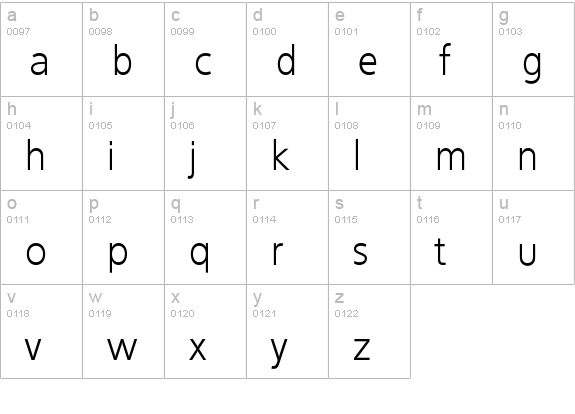
Quebec-Light is a refined, elegant variant in the Quebec typeface family \xE2\x80\x94 well suited to elegant body text, refined sub-headings, and luxury branding.
Quebec-Light is a stunningly elegant font that exudes sophistication and modernity. With its sleek lines and refined curves, this font is perfect for adding a touch of class to any project. Whether you're designing a logo, creating a website, or crafting a stylish invitation, Quebec-Light will elevate your work to the next level. This font is unique in its ability to strike the perfect balance between simplicity and elegance. The light weight of the font gives it a delicate and airy feel, making it ideal for projects that require a subtle touch. It is versatile enough to be used in both headline and body text, ensuring that your message is conveyed effortlessly. One of the best things about Quebec-Light is that it is free to download at FontsMarket.com. This means that you can enjoy the beauty and sophistication of this font without having to spend a dime. FontsMarket.com is a trusted source for high-quality fonts, and Quebec-Light is no exception. By offering this font for free, FontsMarket.com is making it accessible to all designers, regardless of their budget. So why wait? Download Quebec-Light today and add a touch of elegance to your next project. Whether you're designing for print or web, this font is sure to impress. With its free availability at FontsMarket.com, there's no reason not to give it a try. Elevate your design game with Quebec-Light and let your creativity shine.